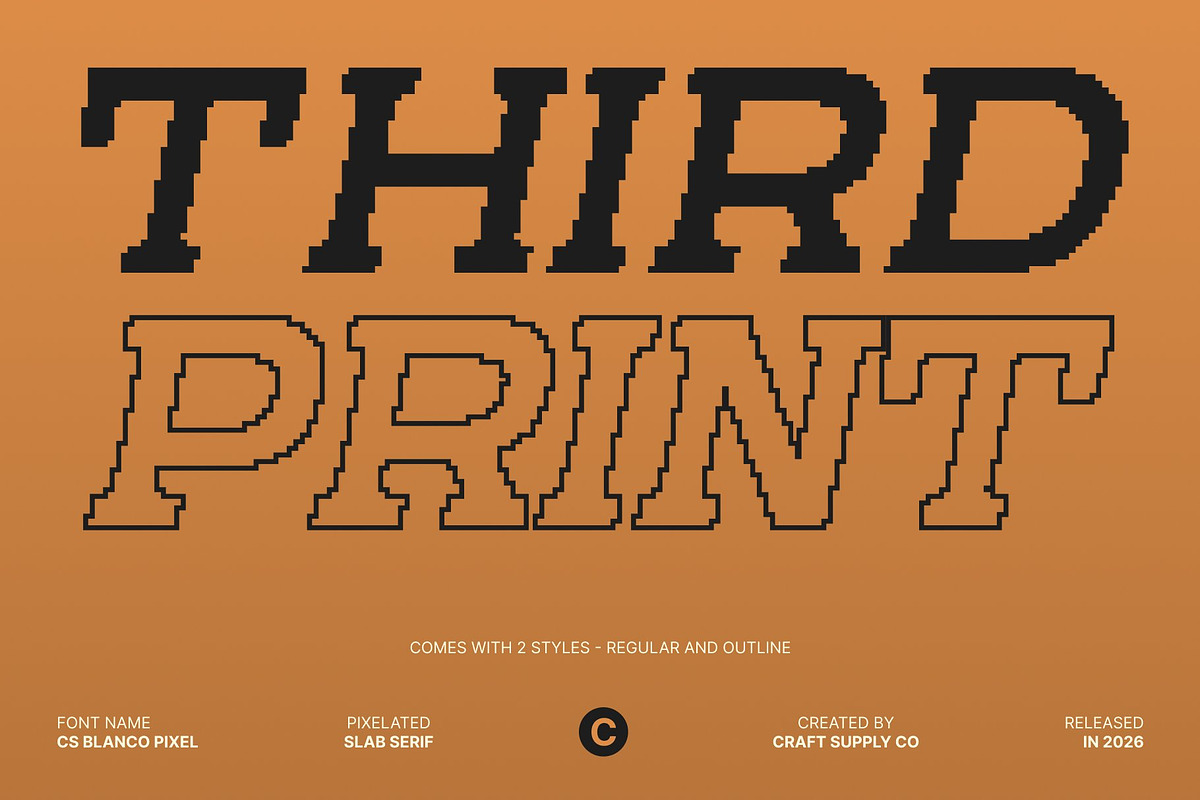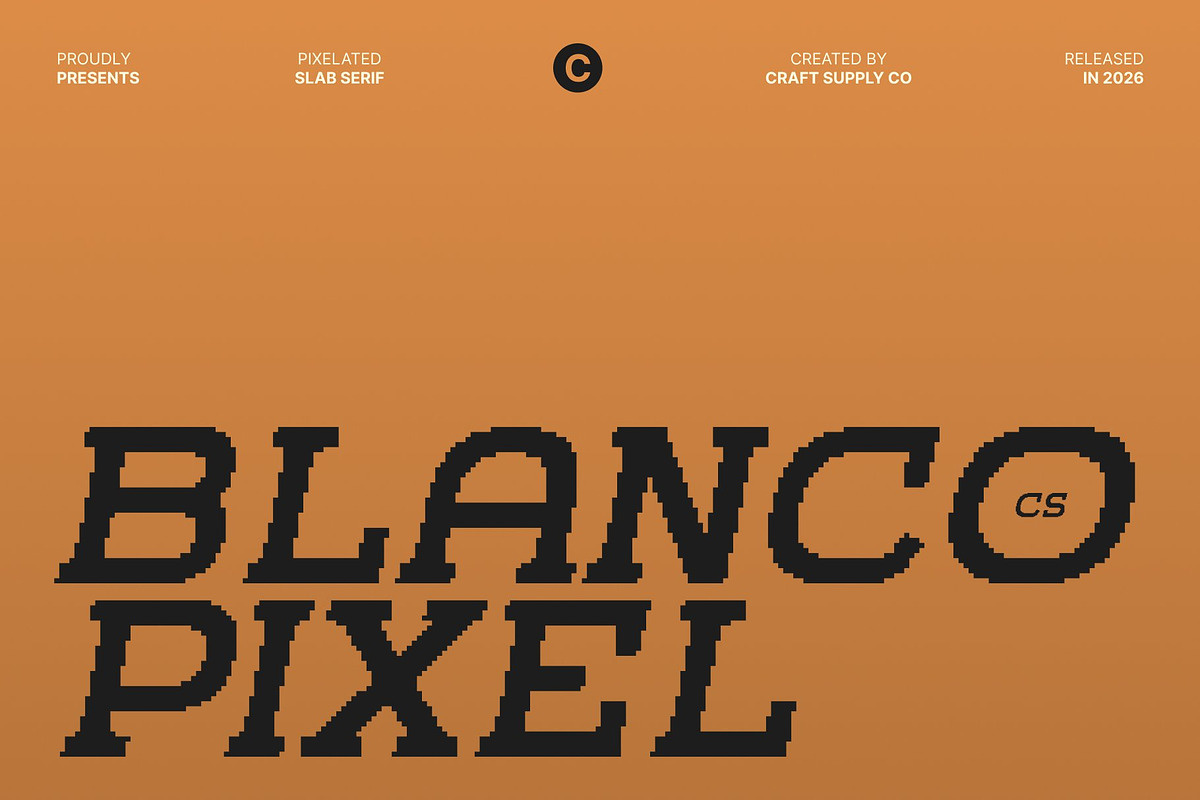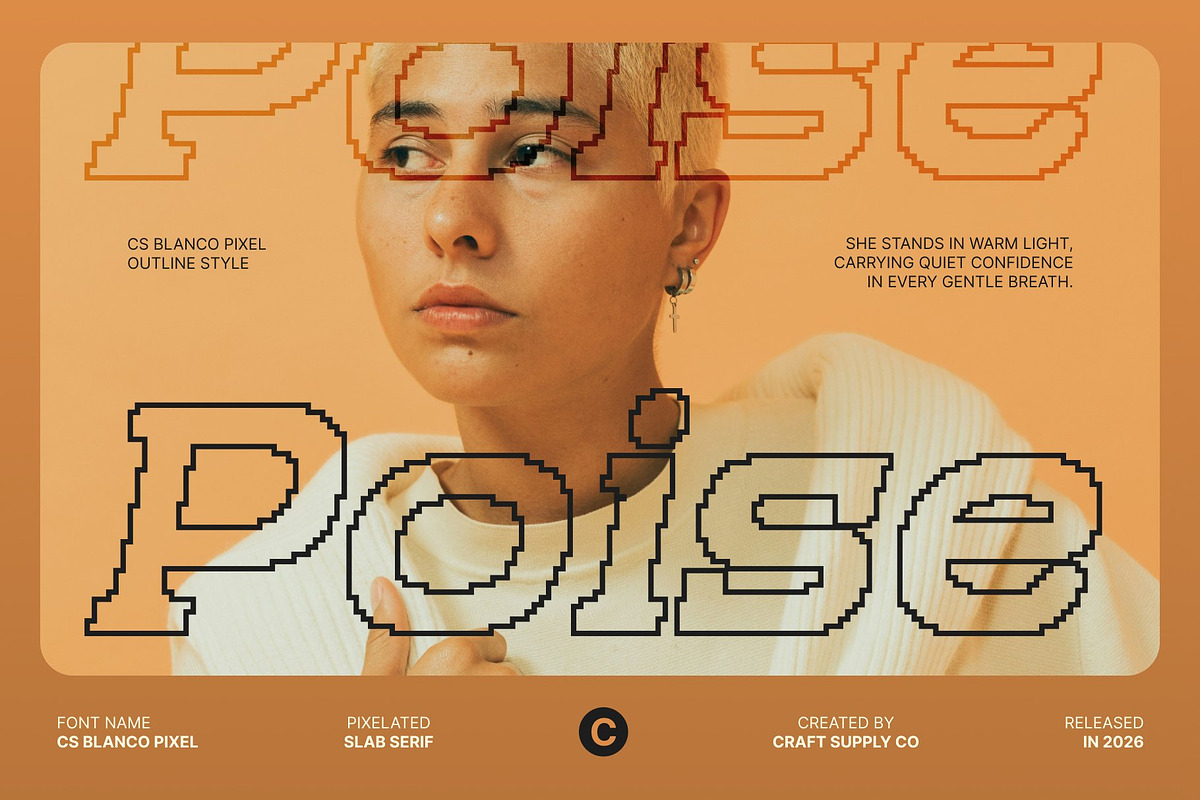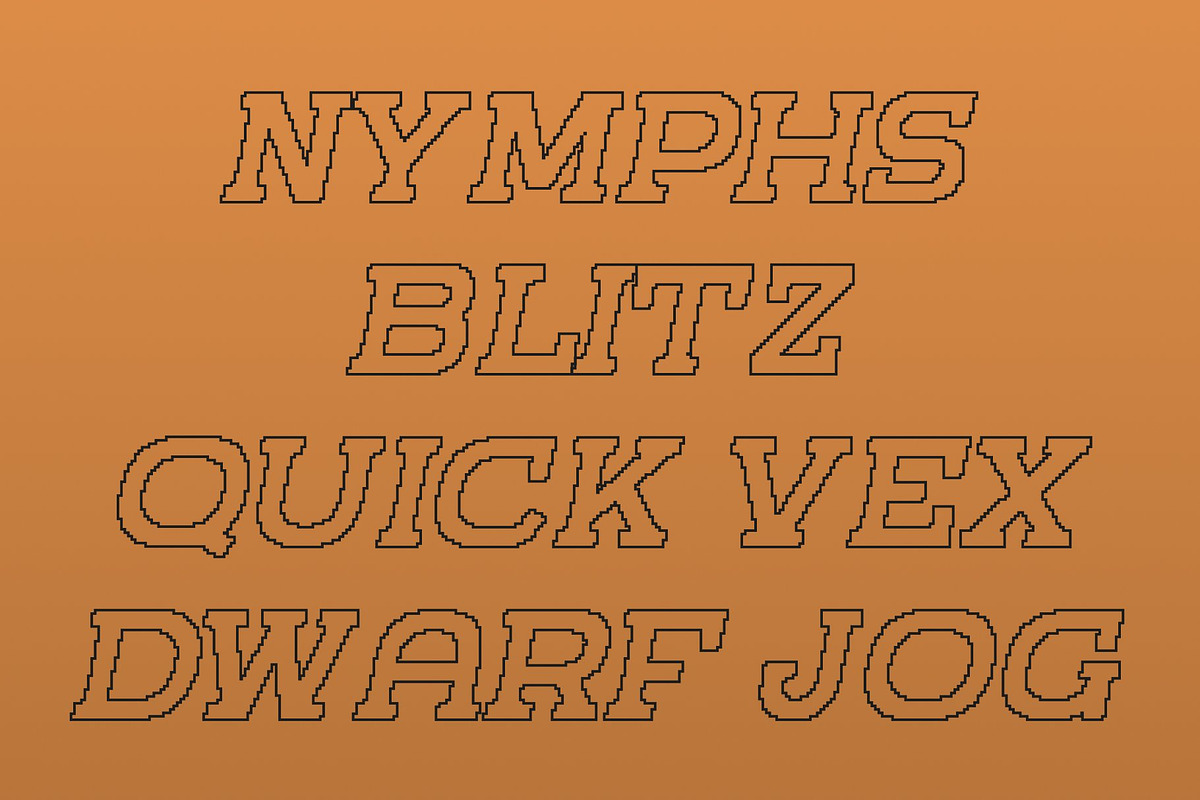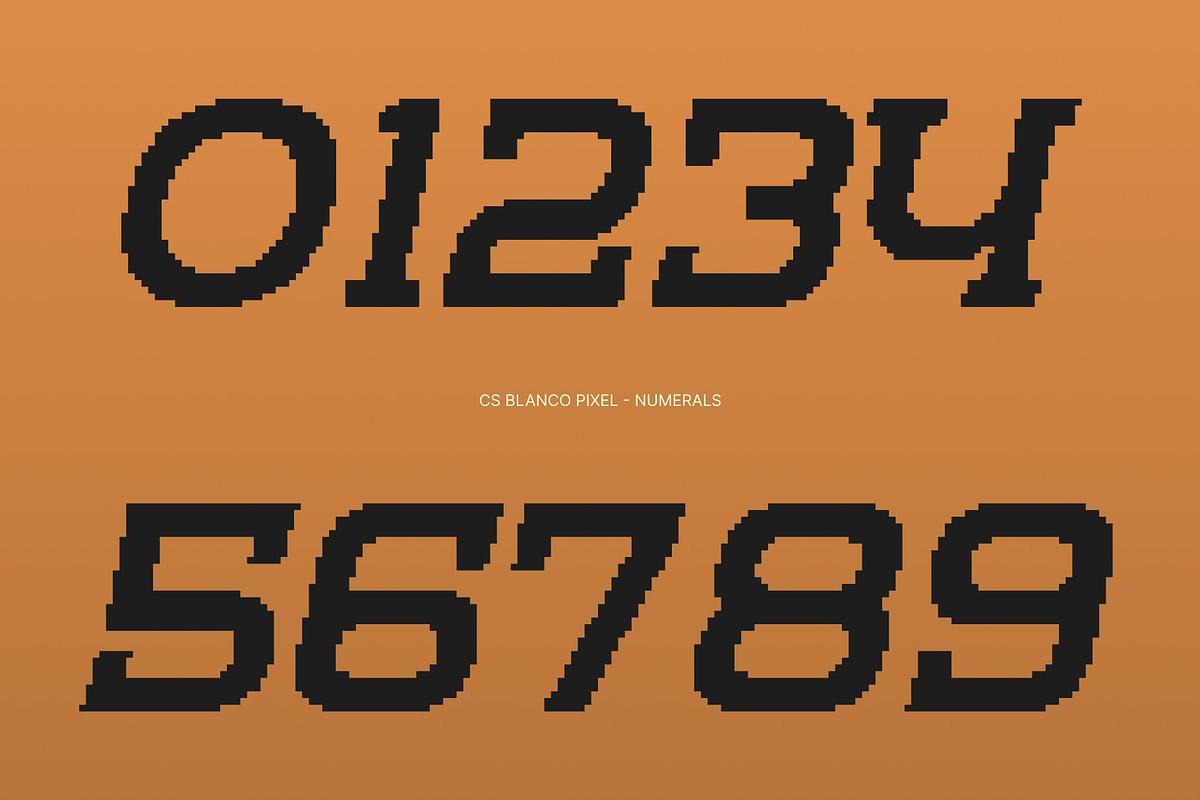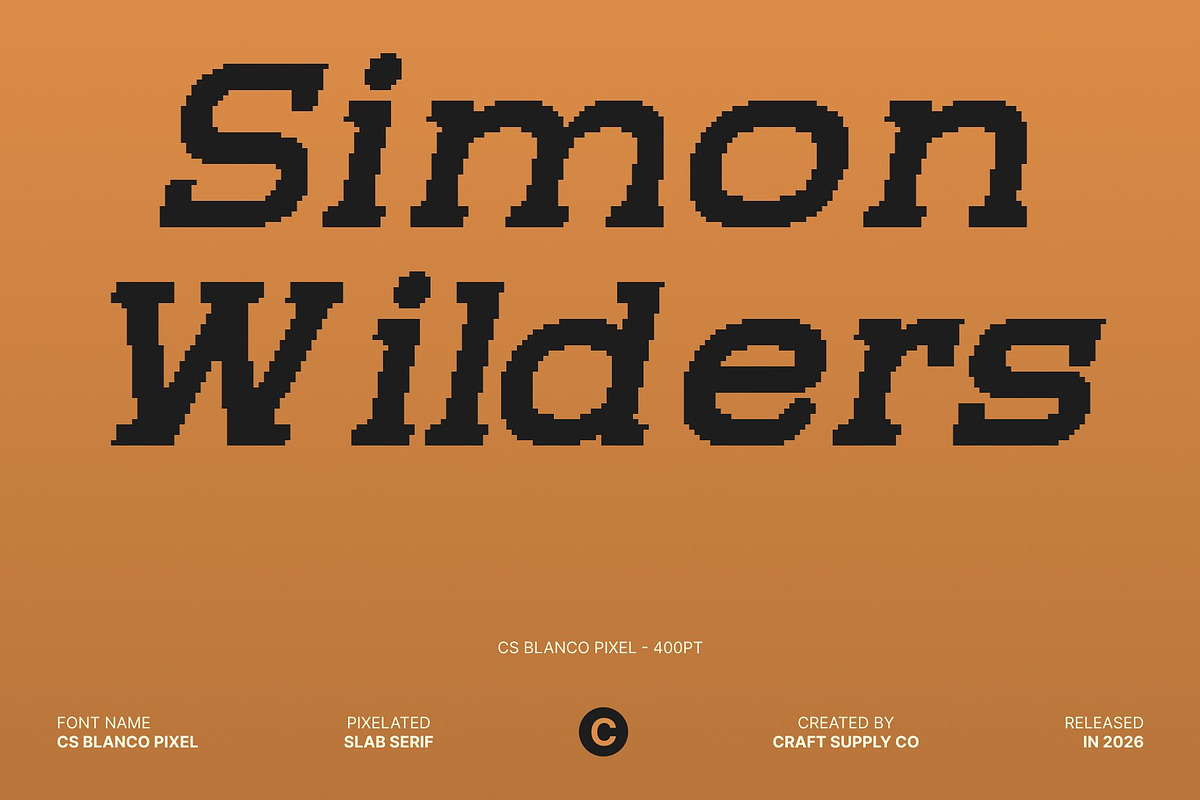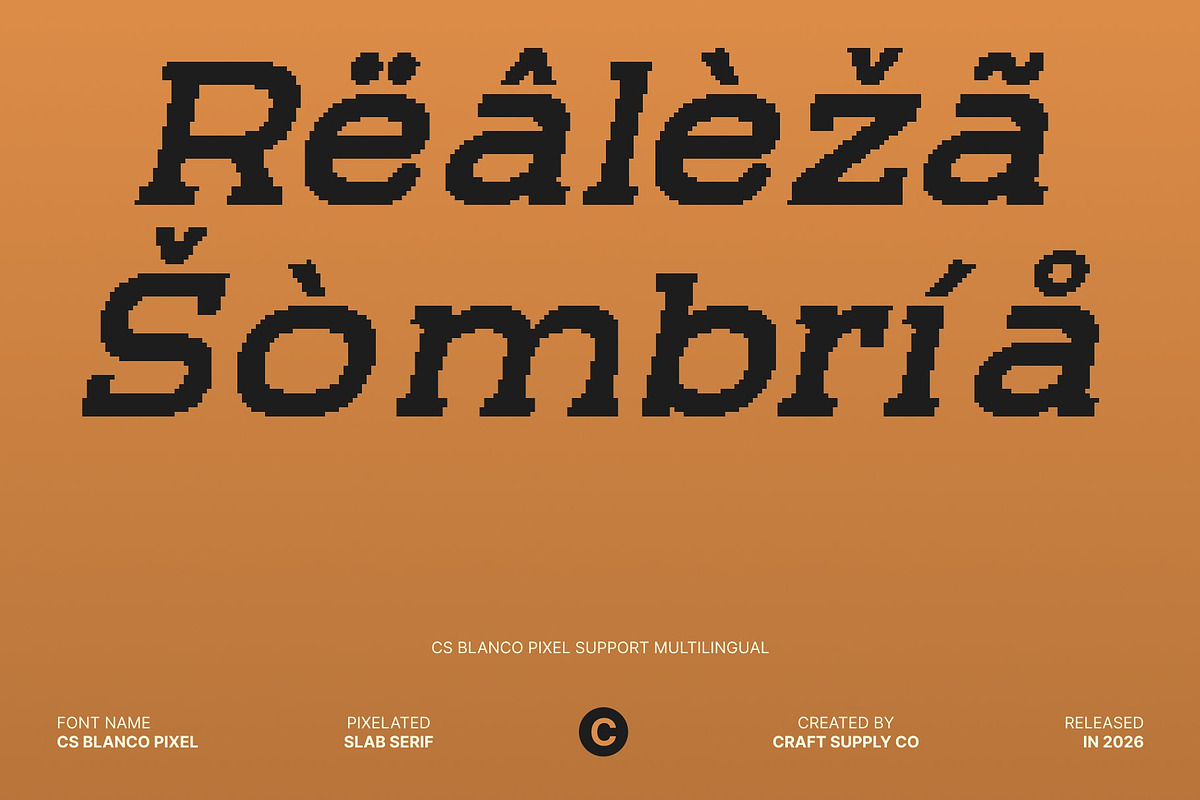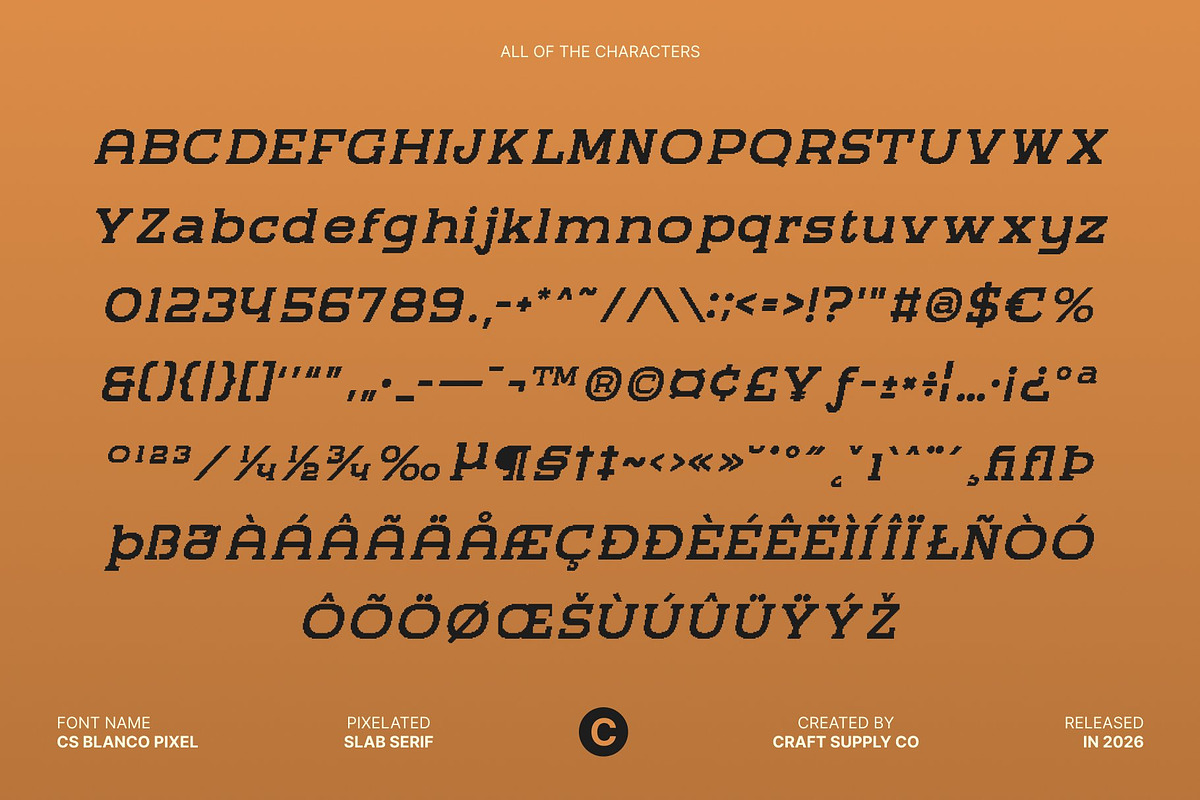
CS Blanco Pixel
CS Blanco Pixel – Expanded Slab Serif with Strong, Assertive Presence
Expanded Slab Serif Forms with Pixel Character This is a slab serif font designed with expanded proportions that instantly project strength and confidence. Its wide stance, sturdy serifs, and construction create a commanding visual identity. Enhanced with a pixel style, the font gains a distinctive digital edge that makes every letter feel powerful, structured, and visually striking.
High Readability for Digital and Large-Scale Displays Built for clarity, this font performs exceptionally well in large formats and digital environments. The strong letterforms and balanced proportions ensure excellent legibility for headlines, posters, billboards, and on-screen visuals. The pixel-inspired structure reinforces sharpness, making the font stand out clearly even from a distance.
Retro Technology Aesthetic with Modern Strength The pixel style introduces a nostalgic touch inspired by old technology and classic digital screens. Combined with its solid slab serif foundation, the font balances retro charm with modern assertiveness. This fusion creates an eye-catching look that feels bold, confident, and perfectly suited for contemporary digital design.
Ideal for Sports, Branding, and Energetic Visuals With its expanded weight and pixel-enhanced form, this font is ideal for sports branding, tech visuals, gaming themes, and impactful promotions. Its strong presence conveys power, reliability, and intensity, making every design feel dynamic, memorable, and visually dominant.
- CS Blanco Pixel Regular
- CS Blanco Pixel Outline